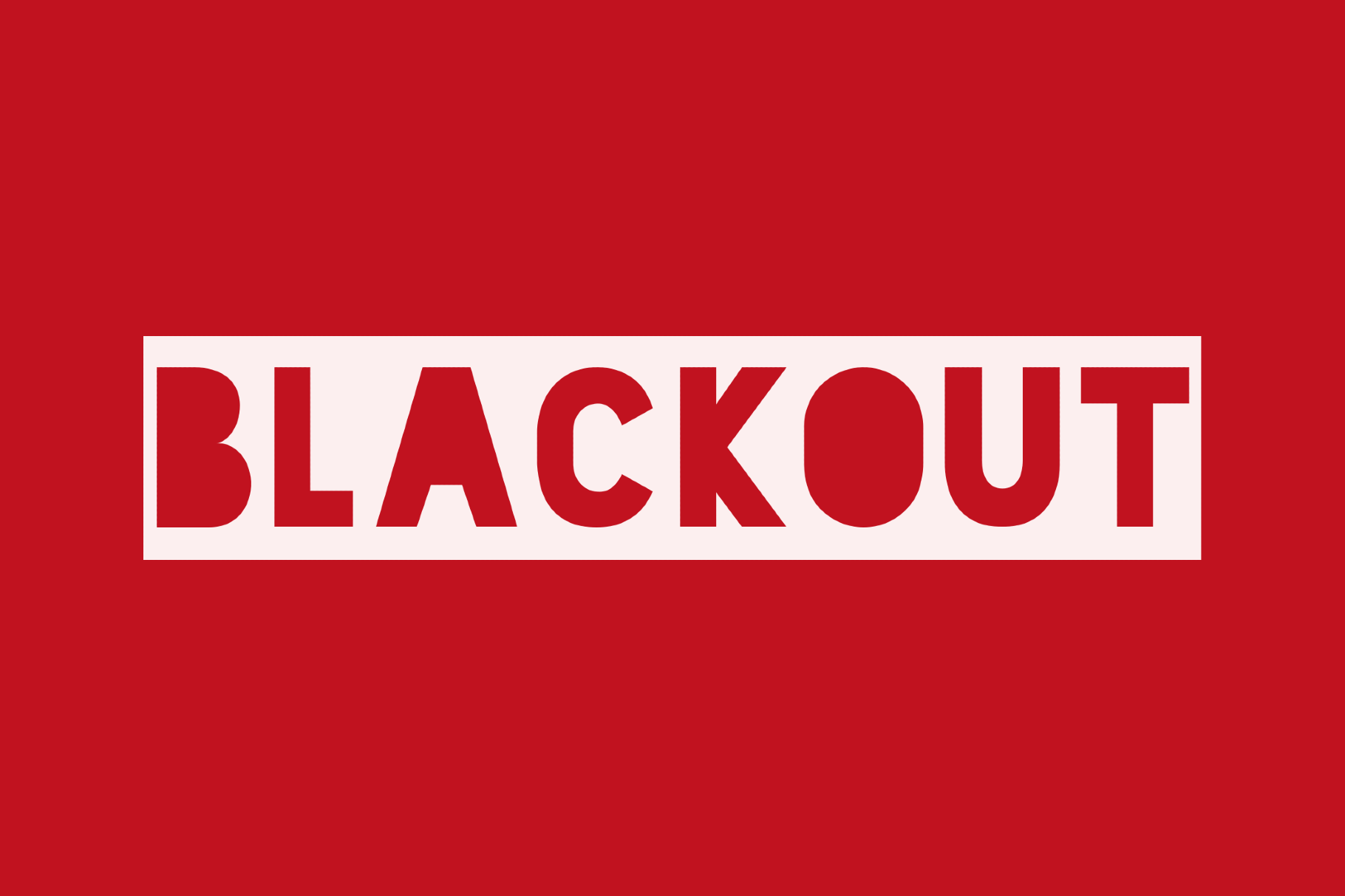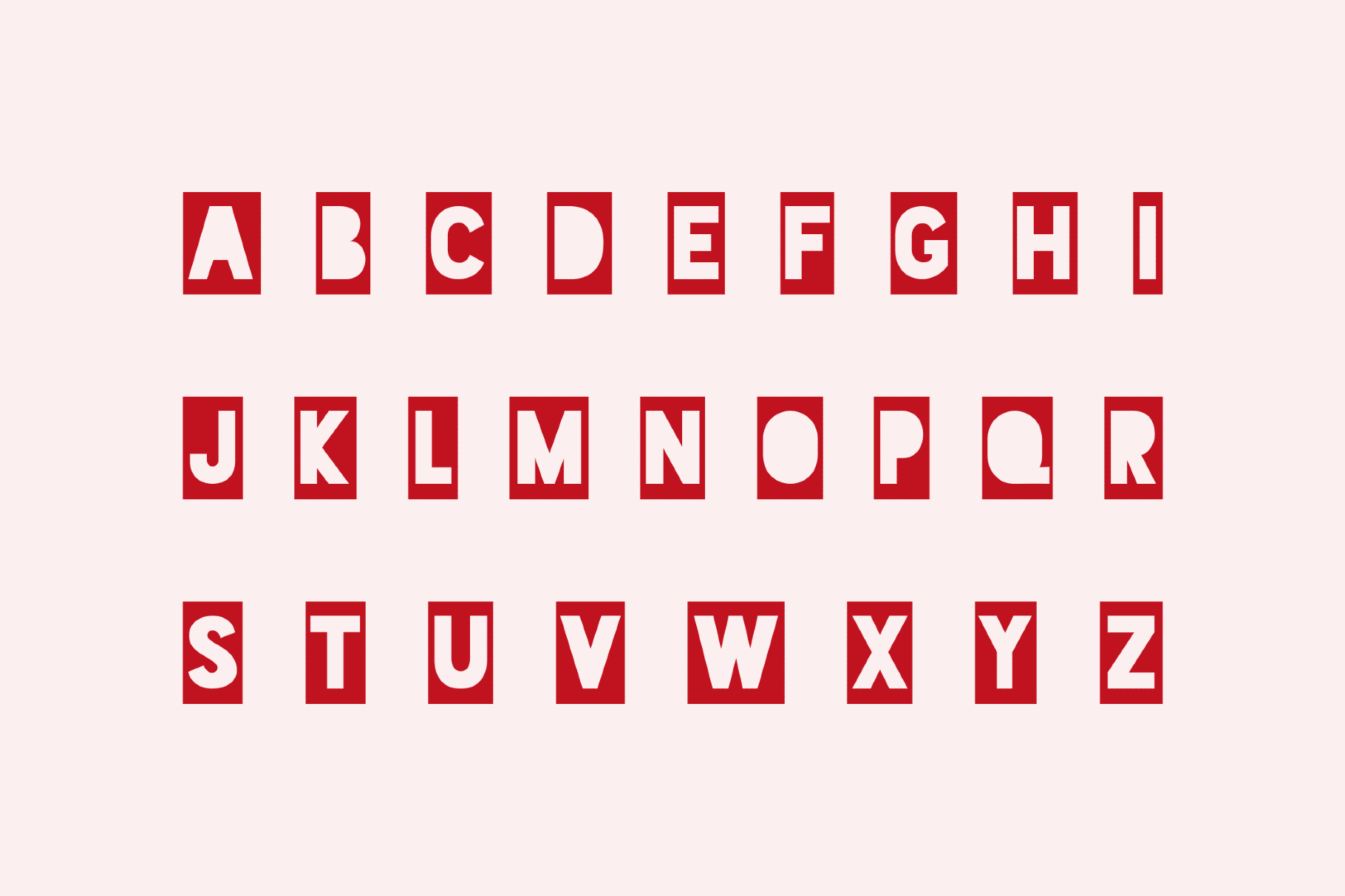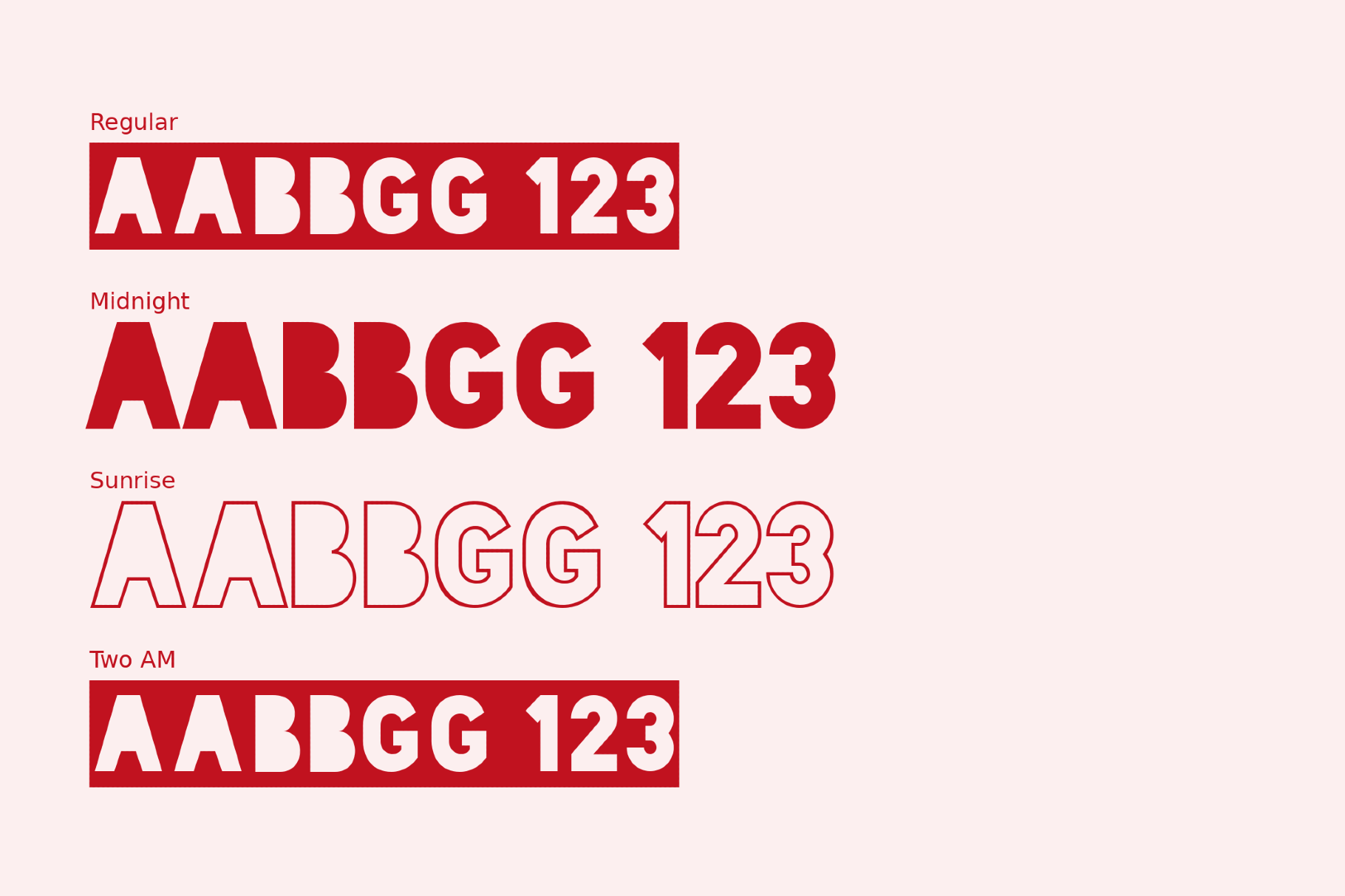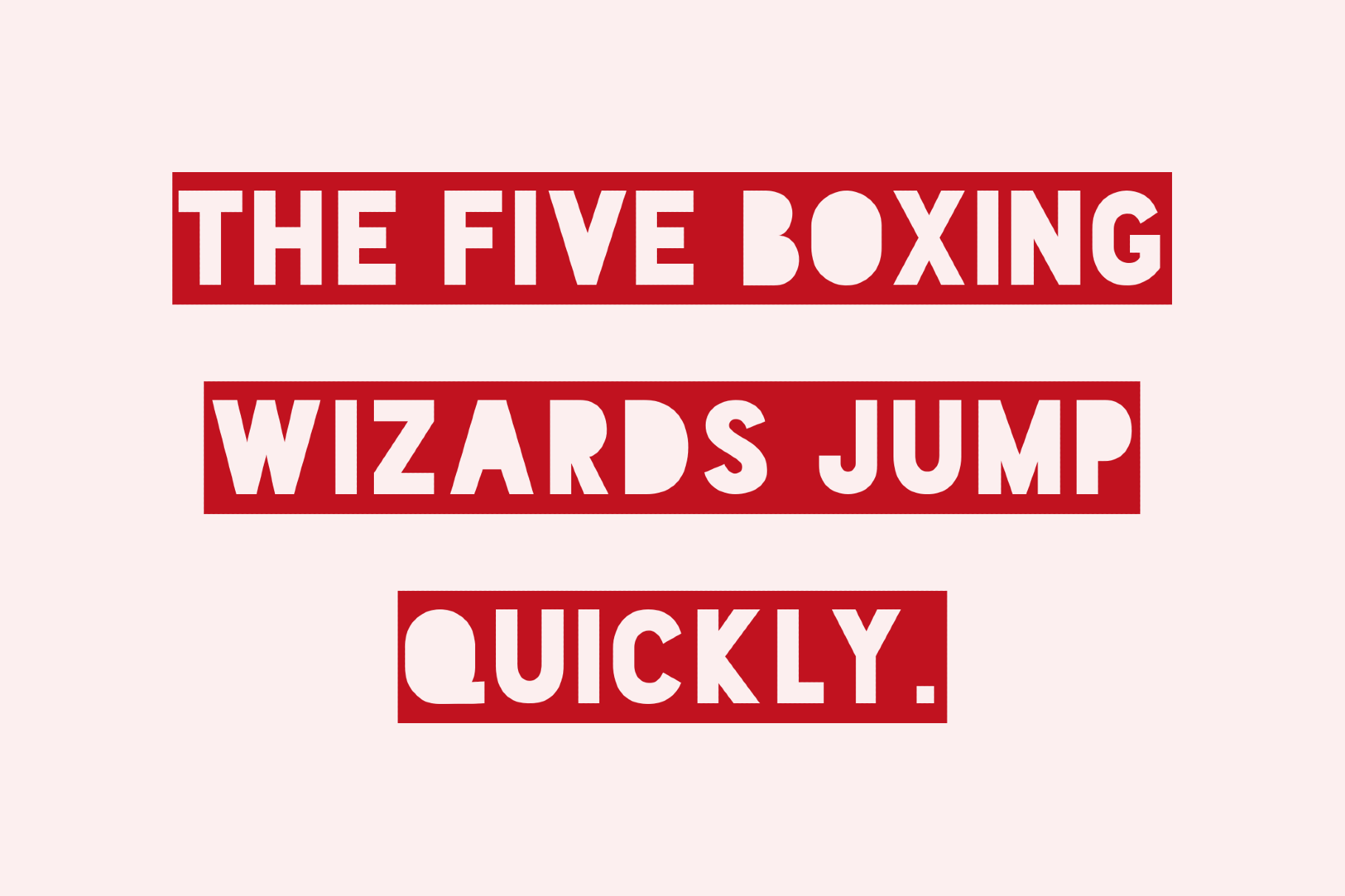
Blackout 90s Stencil Font
Blackout is the visual equivalent of a stamp pressed too hard — letterforms so bold they begin to fill themselves in from the inside, with a texture drawn from 1990s stencil graffiti, DIY screen-printing, and overexposed photocopier aesthetics.
Its two variants (Sunrise and Midnight) give it a range from barely legible to fully saturated. The font works for street art–inspired poster titles, underground event graphics, skate and music brand identity, apparel prints, and editorial headers that thrive on controlled chaos.